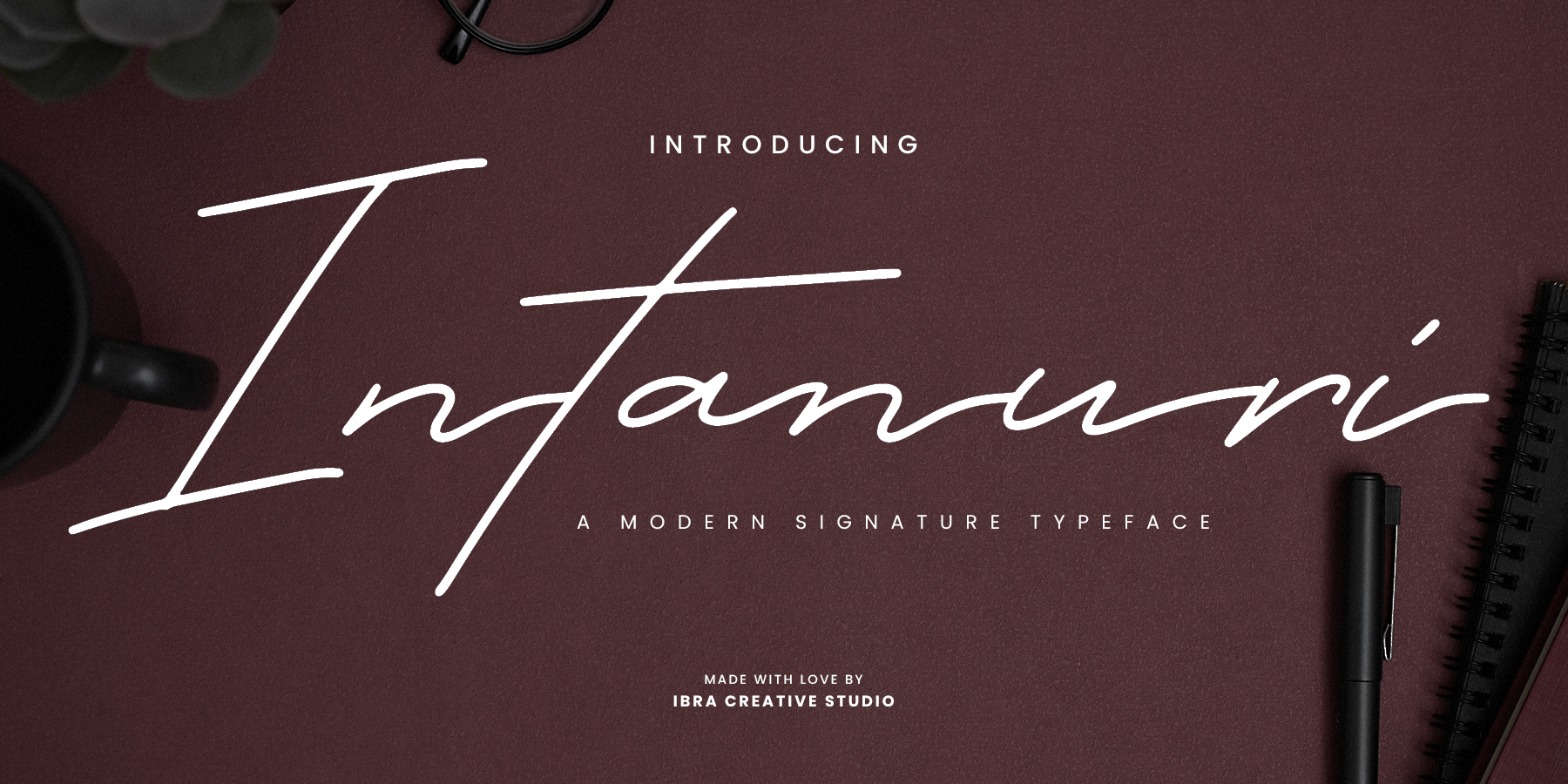
Intanuri Font is perfect for elegant branding, sophisticated stationery, luxury packaging, refined signage, upscale corporate communications, graceful wedding materials, premium advertising campaigns, and distinguished display typography.
What makes Intanuri Font exciting is its sophisticated elegant character that embodies refined beauty and graceful sophistication through flowing letterforms and luxury appeal. This enchanting typeface features elegant construction, refined details, and sophisticated personality that captures the essence of grace and premium quality, making it ideal for projects seeking to communicate elegance, luxury, and refined sophistication with authentic graceful appeal and upscale refinement.
The Intanuri Font family includes Light, Regular, Medium, and Bold weights, each available in upright and italic variations, providing comprehensive elegant solutions while preserving the characteristic refined grace and sophisticated appeal.
Intanuri Font Free Download offers designers access to a premium typeface that perfectly captures the essence of elegant sophistication and refined luxury. This graceful font brings authentic elegant aesthetics to contemporary projects, making it essential for luxury brands, upscale services, and sophisticated companies targeting audiences who appreciate refined design quality and elegant presentation. The font's elegant construction and refined details ensure immediate recognition of sophistication and quality while its distinctive character creates emotional connections among individuals seeking elegant experiences and refined lifestyle choices. Whether designing luxury product packaging, elegant brand campaigns, or sophisticated corporate communications, this font delivers the elegant authenticity and refined sophistication that discerning audiences expect. Its luxury foundation and elegant symbolism make it indispensable for projects celebrating sophisticated lifestyle, elegant design culture, and the timeless appeal of refined beauty, ensuring communications resonate with audiences who value the graceful elegance, sophisticated refinement, and luxury quality that define authentic elegant experiences and refined lifestyle choices across diverse luxury and sophisticated applications.